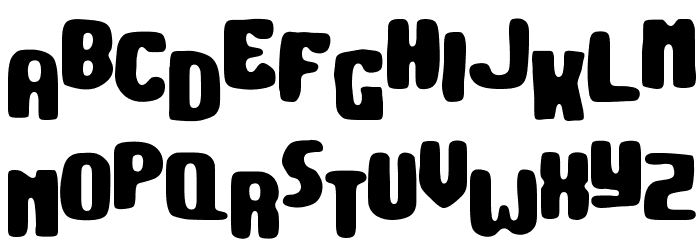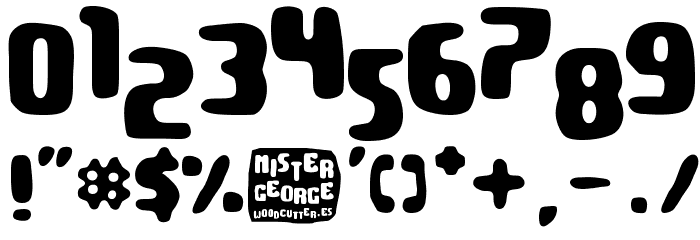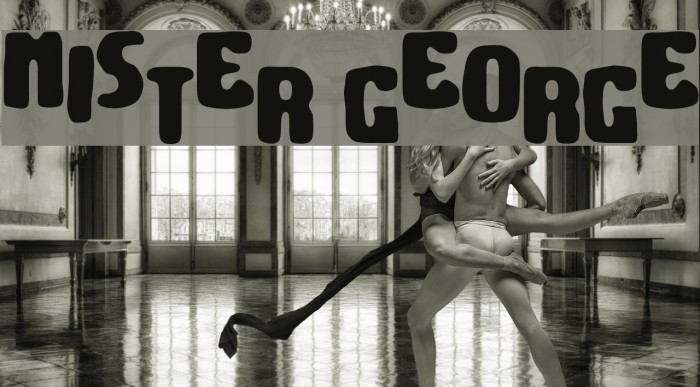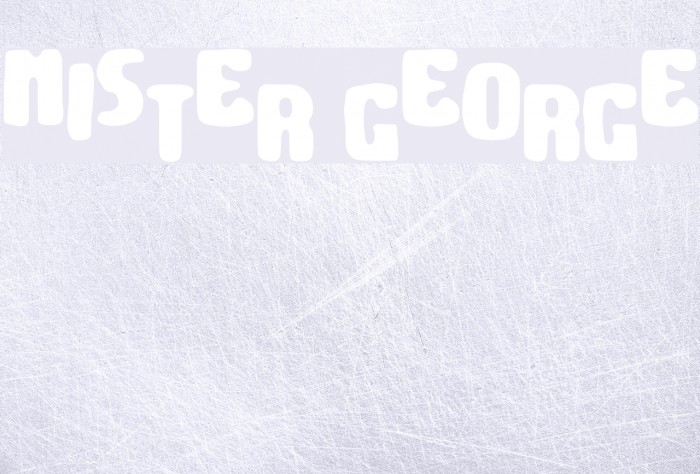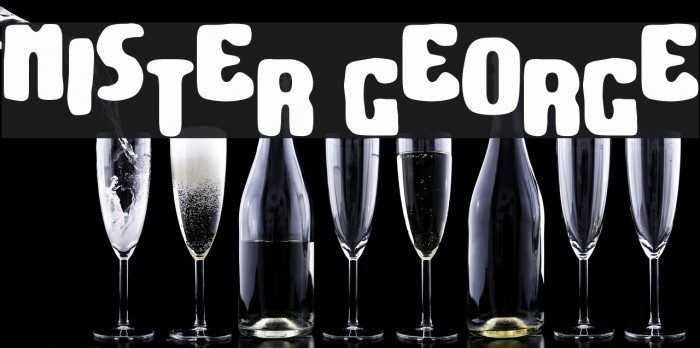
Mister George Font
This font features a bold, playful style with rounded, thick strokes that give it a bubbly and friendly appearance. The characters are highly stylized with a unique, almost cartoonish quality, making them stand out with their exaggerated curves and soft edges. The uppercase and lowercase letters maintain a consistent weight, contributing to a cohesive look. Numbers and special characters follow the same design principles, ensuring uniformity across all glyphs. This font's distinctive style is perfect for projects that require a fun and informal touch.
A bold, playful font with rounded, thick strokes and a cartoonish style.
- Proposed Projects: Ideal for children's books, playful branding, party invitations, and creative posters.
- Overall Style: Playful, Fun, Cartoonish